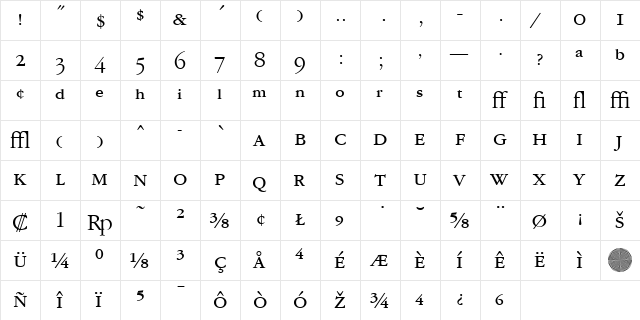
GarryMondrianExpt3 LightSH
Design Context for GarryMondrianExpt3 Typeface
GarryMondrianExpt3 offers clean, dependable letterforms without strong stylistic allegiance, making it a practical choice for designers who need flexibility. Its slender proportions lend an understated elegance to any composition.
Pro Tip: Use GarryMondrianExpt3 in both headline and body roles to test its range before committing to a single application.